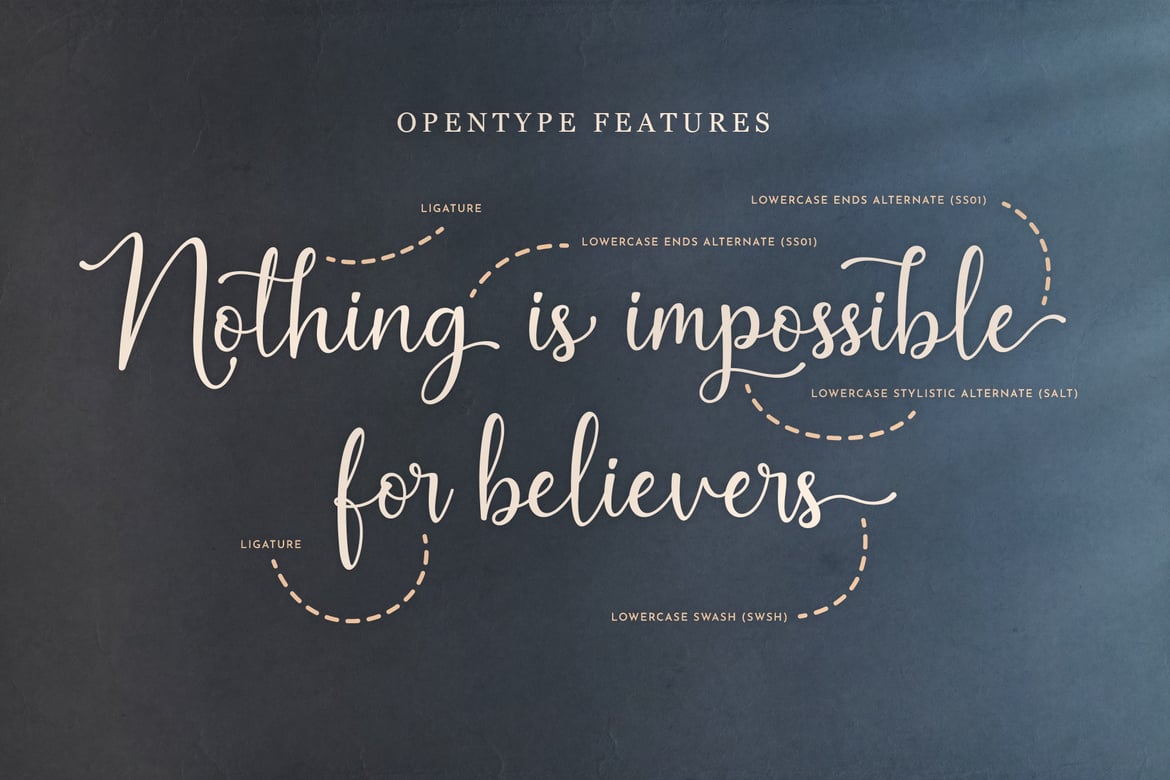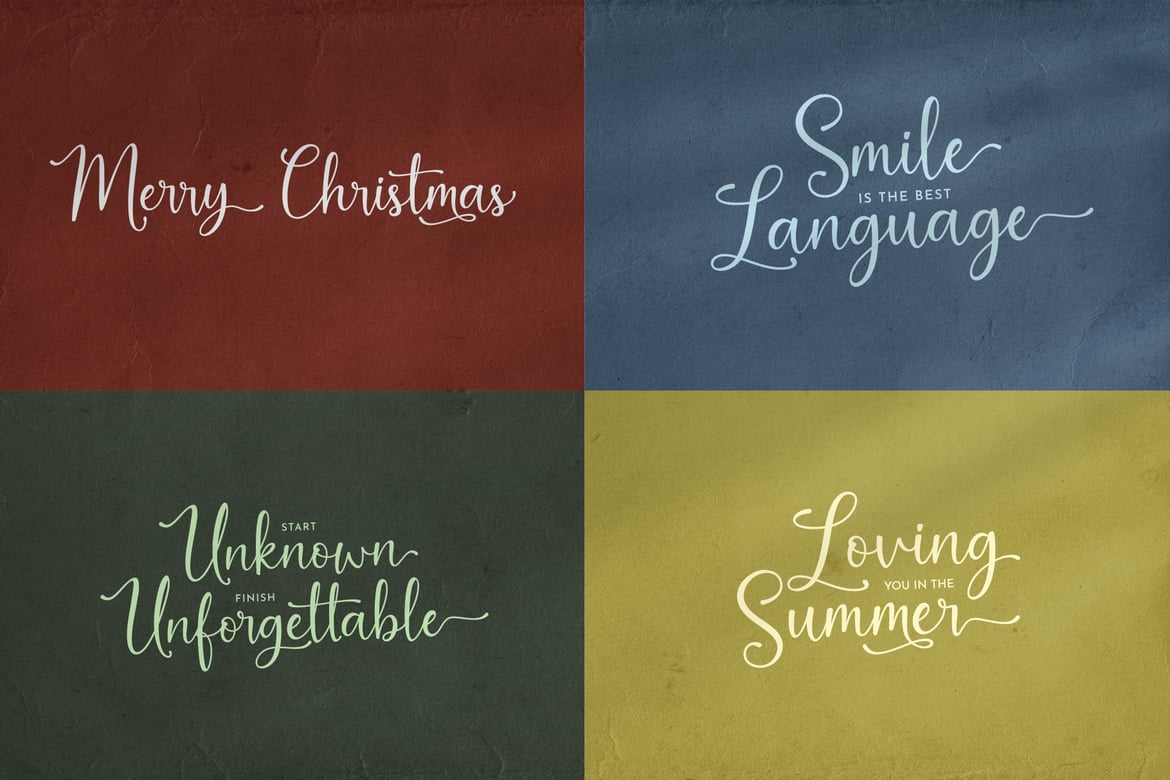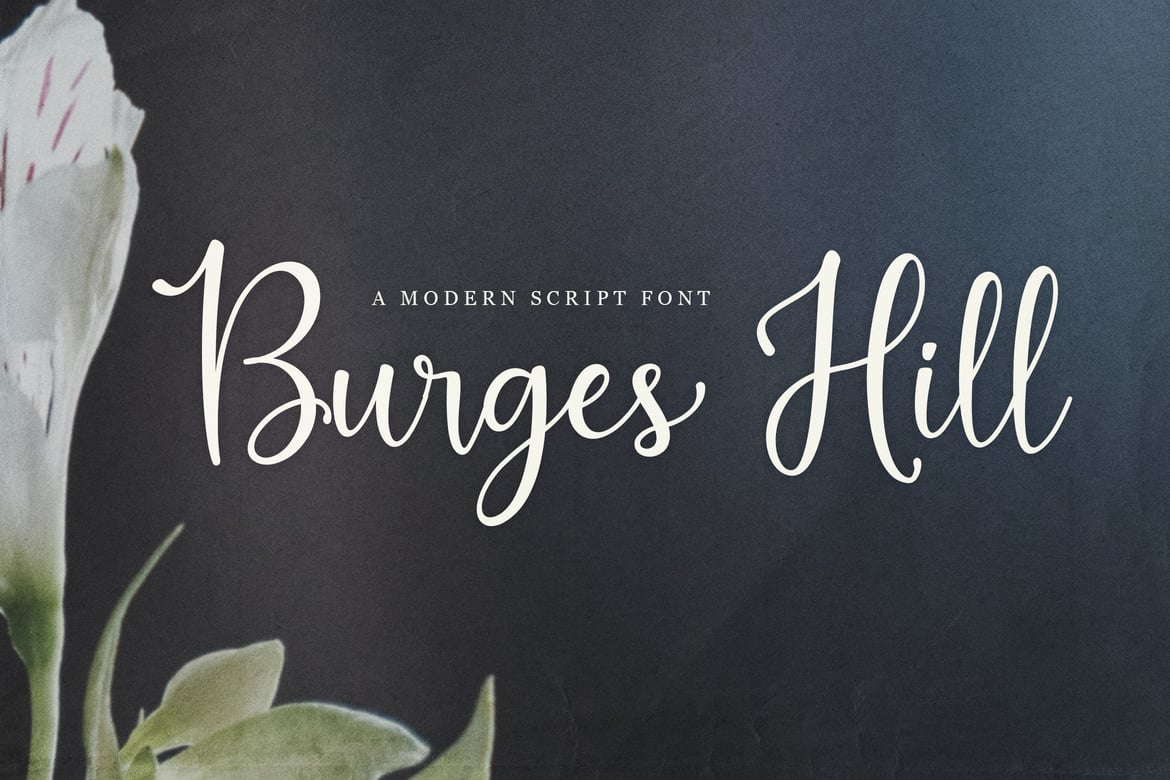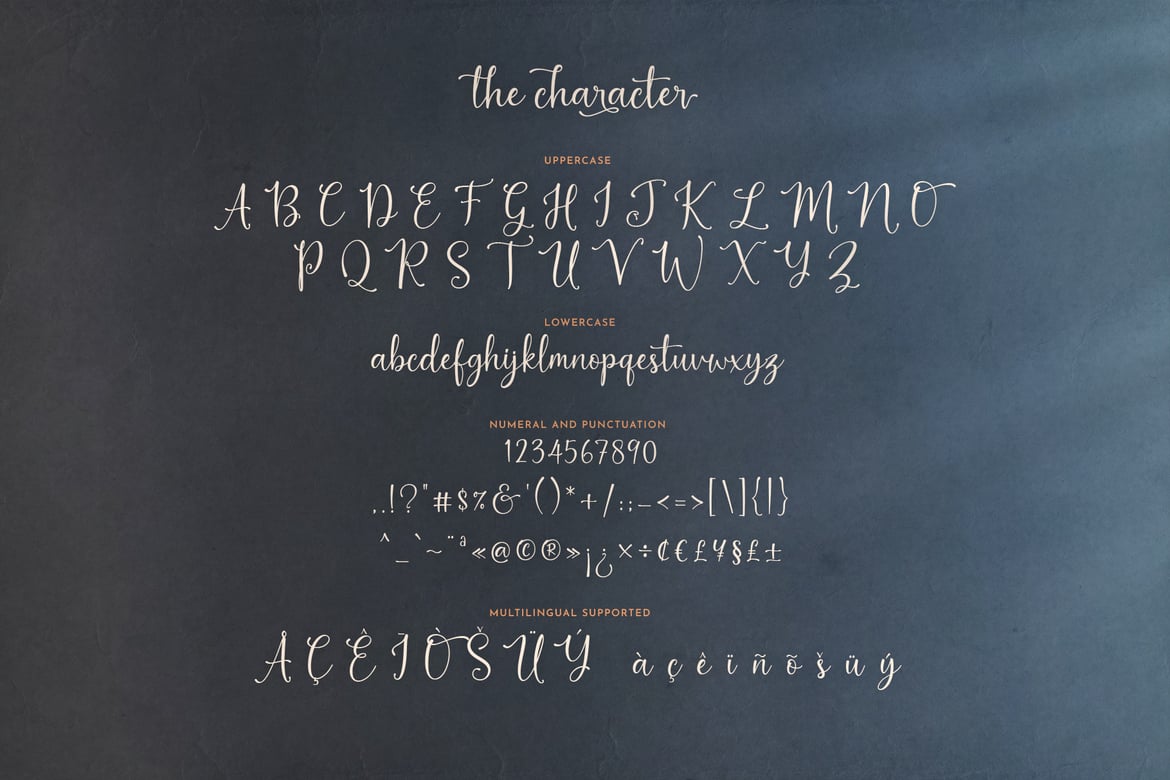
Burges Hill – Modern Script Font
Burges Hill is a modern calligraphy font, has an elegant design but with a casual feel . This fonts will make your design look elegant , casual, and authentic. It offers support for all English characters, some opentype features (alternate, ligature and swashes), several characters in different languages and standard punctuation included.